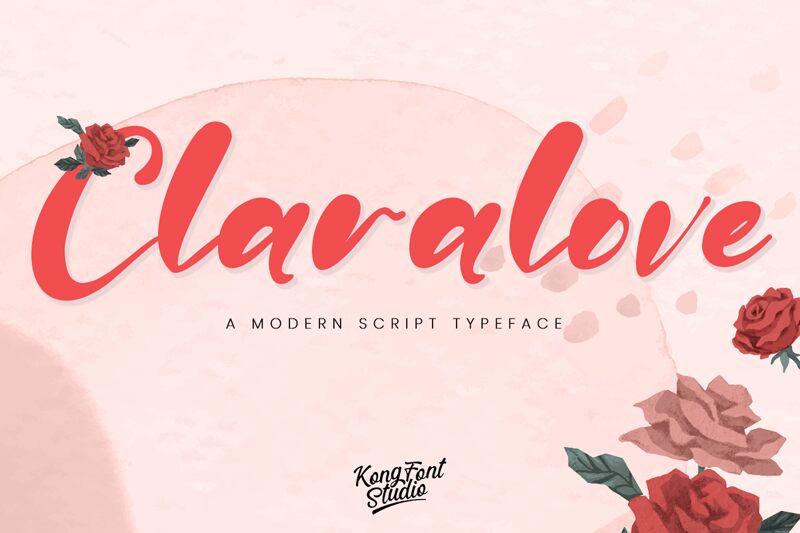
Claralove
Claralove, designed by Kong Font, is a modern brush font that exudes boldness and creativity. With its thick strokes and stylish curves, this typeface is perfect for adding a touch of elegance to your designs. Whether you're creating a logo for a fashion brand or designing a poster for an art exhibit, Claralove's versatility makes it suitable for any project that requires an eye-catching font. Its bold weight and modern brush style make it ideal for headlines, titles, and other attention-grabbing elements in your design. Let Claralove add some flair to your next project!